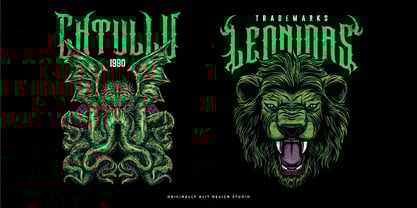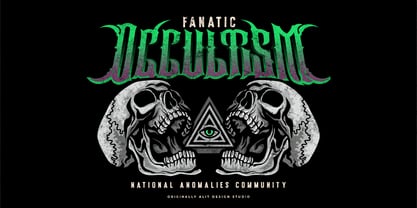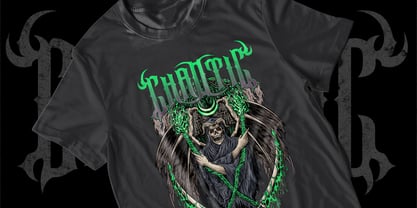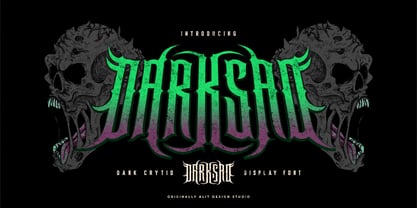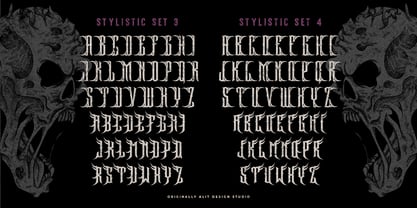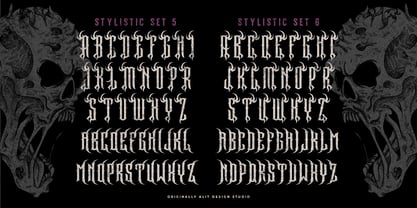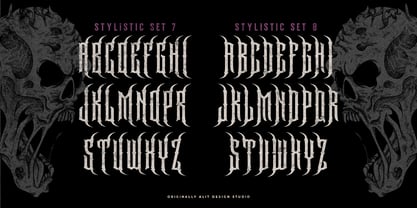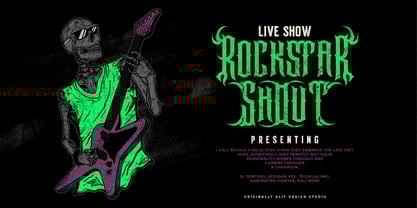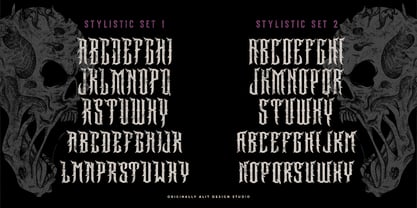
Darksad
The Darksad Font Family was designed by Alit Suarnegara and published by Alit Design. Darksad contains 1 styles.
Darksad Typeface
Embrace the shadows and elevate your designs with Darksad Typeface, a dark metal-inspired font forged with raw intensity and razor-sharp elegance. Featuring bold, thorn-like spikes and a rebellious rock spirit, this typeface is perfect for projects that demand a striking and edgy aesthetic.
Font Features:
• 919 Characters: A robust character set offering endless creative potential, from intricate logos to commanding headlines.
• Many Alternatives: Choose from a variety of alternative letterforms to craft unique, custom typography.
• Ligatures: Seamlessly connected glyphs for a polished, harmonious look.
• Swashes: Eye-catching swashes to add dramatic flair and an artistic edge to your text.
• Multilingual Support: Designed for global reach, with extensive language compatibility.
Ideal for heavy metal album covers, dark-themed branding, or gothic-inspired merchandise, Darksad Typeface blends the fierce energy of rock with the timeless allure of dark aesthetics. Make a bold statement and let your designs cut through the noise with Darksad Typeface.